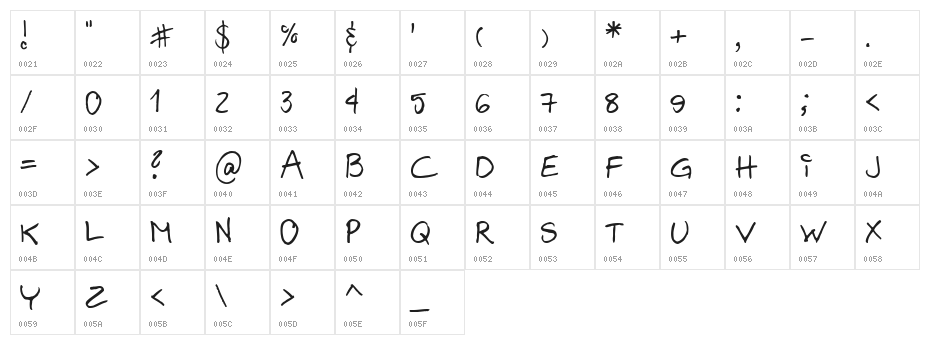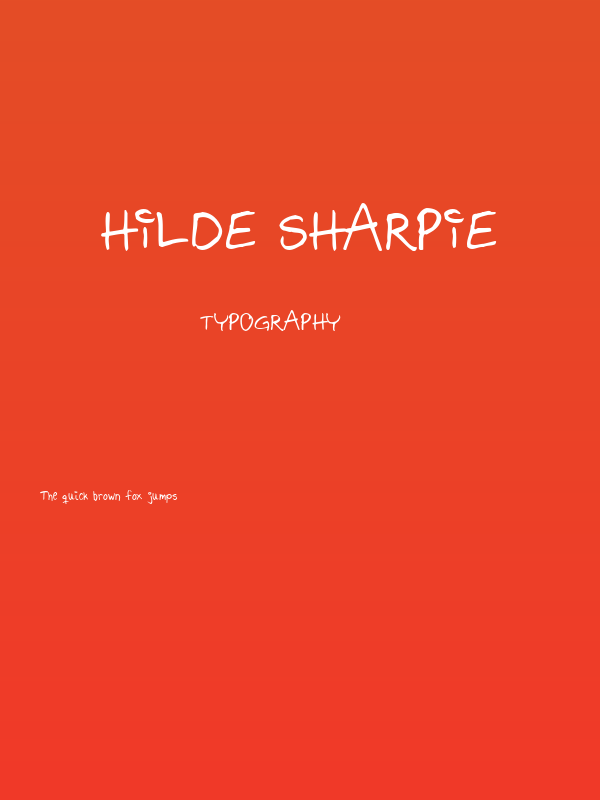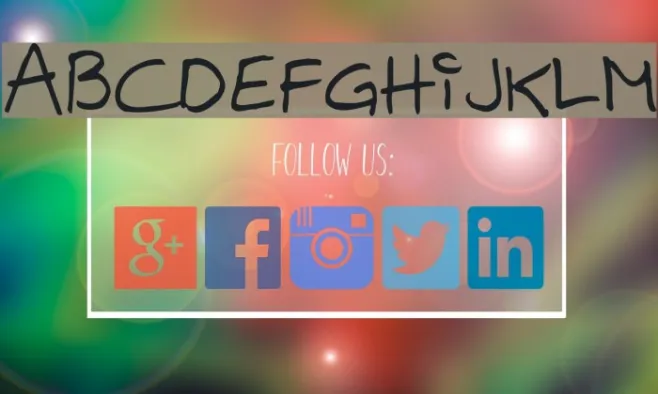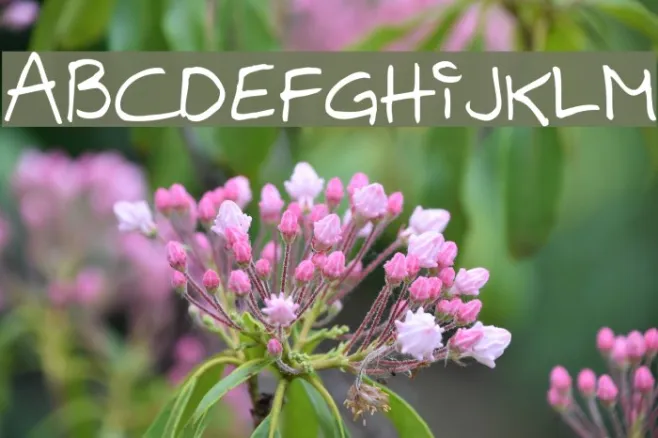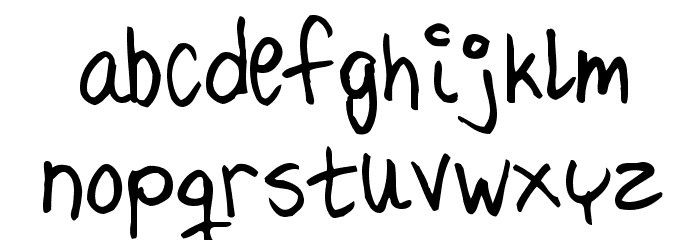
Hilde Sharpie Font
Hilde Sharpie Description
This font features a playful, handwritten style that mimics the look of writing with a marker. The characters are bold and slightly irregular, giving them a casual and approachable feel. The uppercase and lowercase letters maintain a consistent style, with rounded edges and a slight tilt that adds to the informal aesthetic. Numbers and special characters are designed to match the overall look, ensuring a cohesive appearance across all text. The font's thick strokes and uneven lines create a sense of movement and energy, making it ideal for projects that require a personal touch.
| Overall Style | Casual |
| Use Case | Headlines, Informal text, Branding |
| Proposed Projects | Ideal for greeting cards, children's books, casual branding, and social media graphics. |